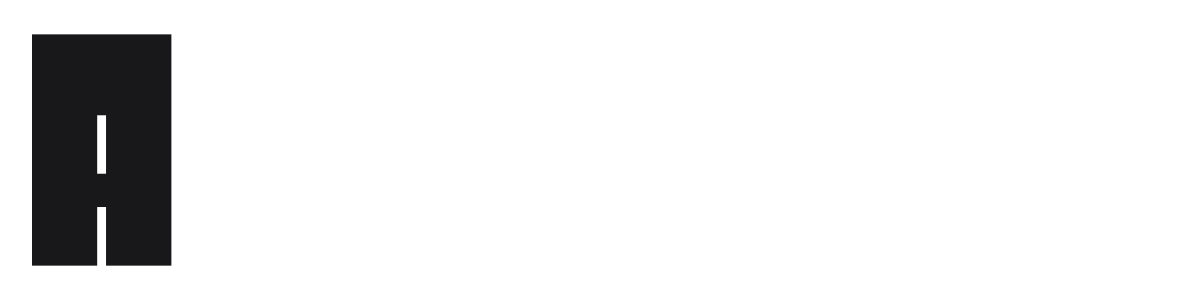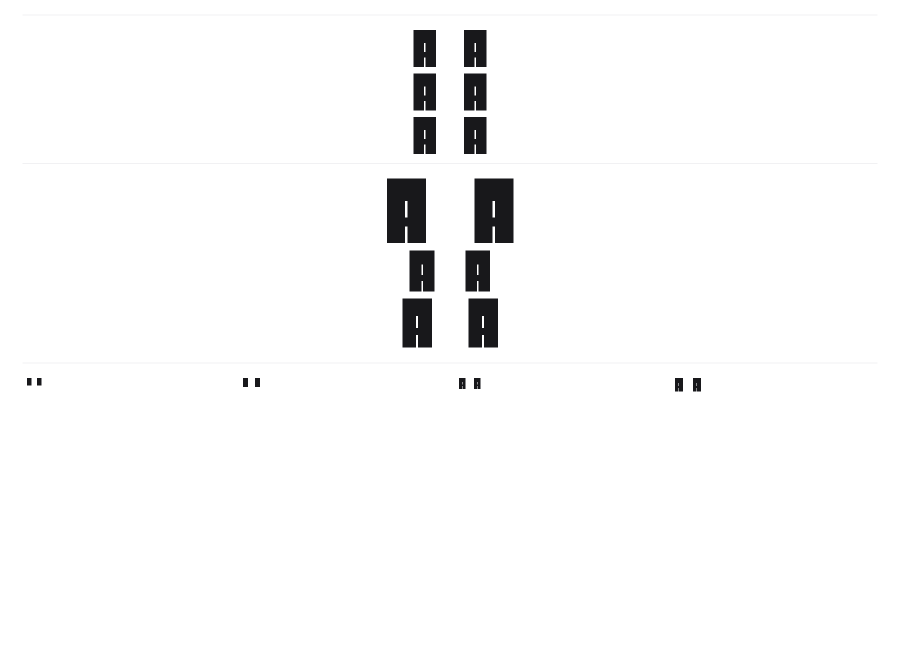
Dolgun
by Osman Aktaş
Dolgun is a dual-font system where capital and lowercase letters belong to entirely different styles, accessed from a single keyboard. The uppercase characters are built from massive black blocks with letters defined by cut-out negative space, creating a raw, architectural weight. The concept makes it genuinely versatile for layered or contrasting type treatments.